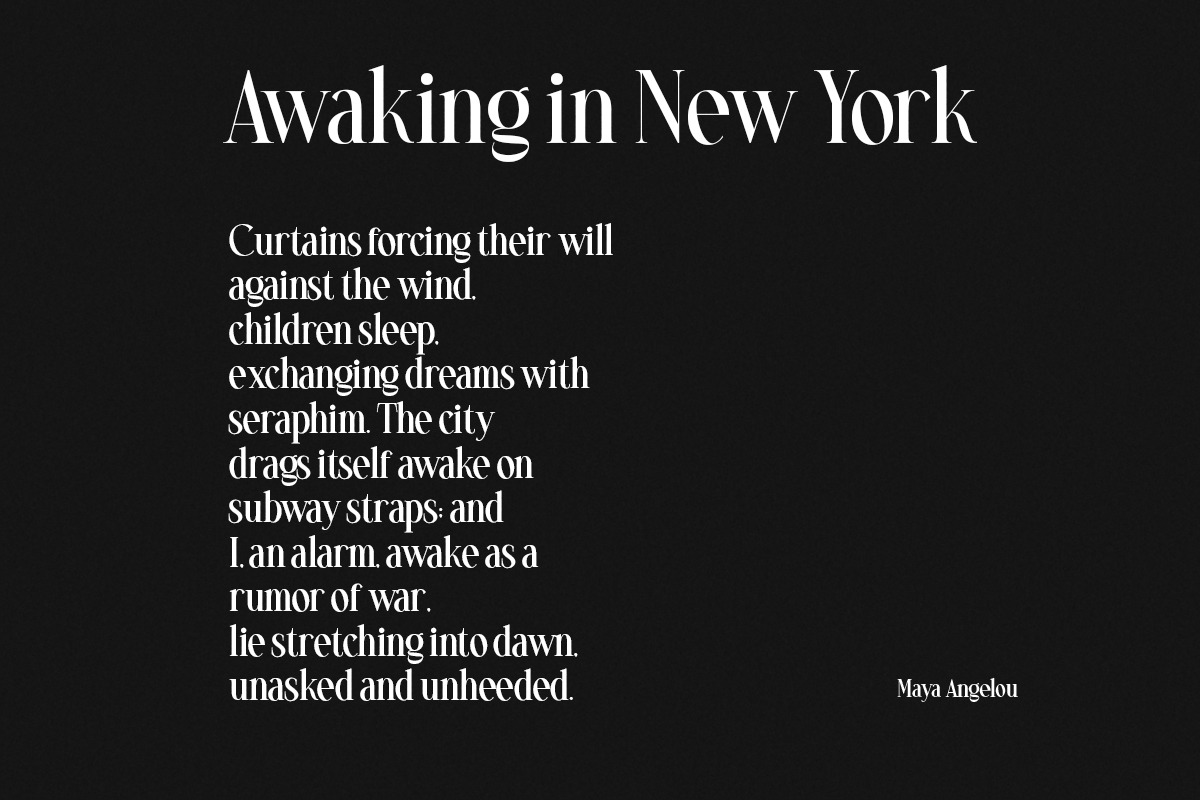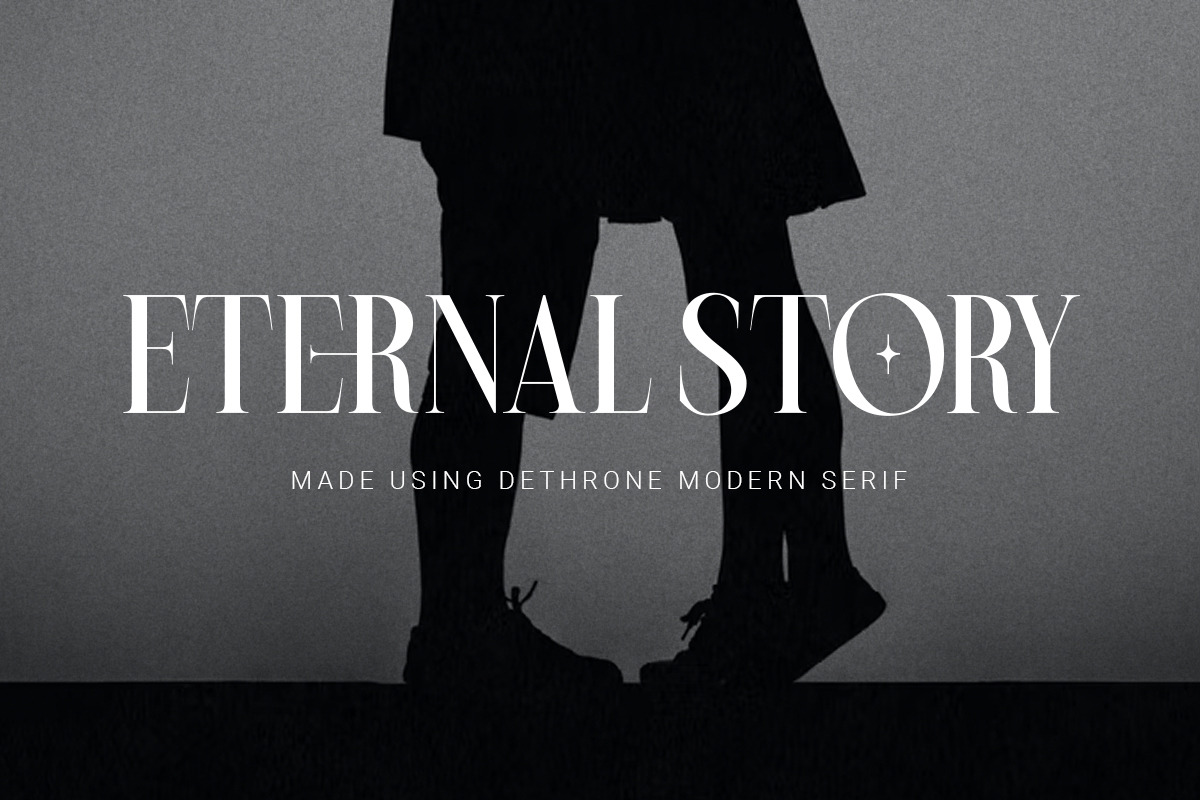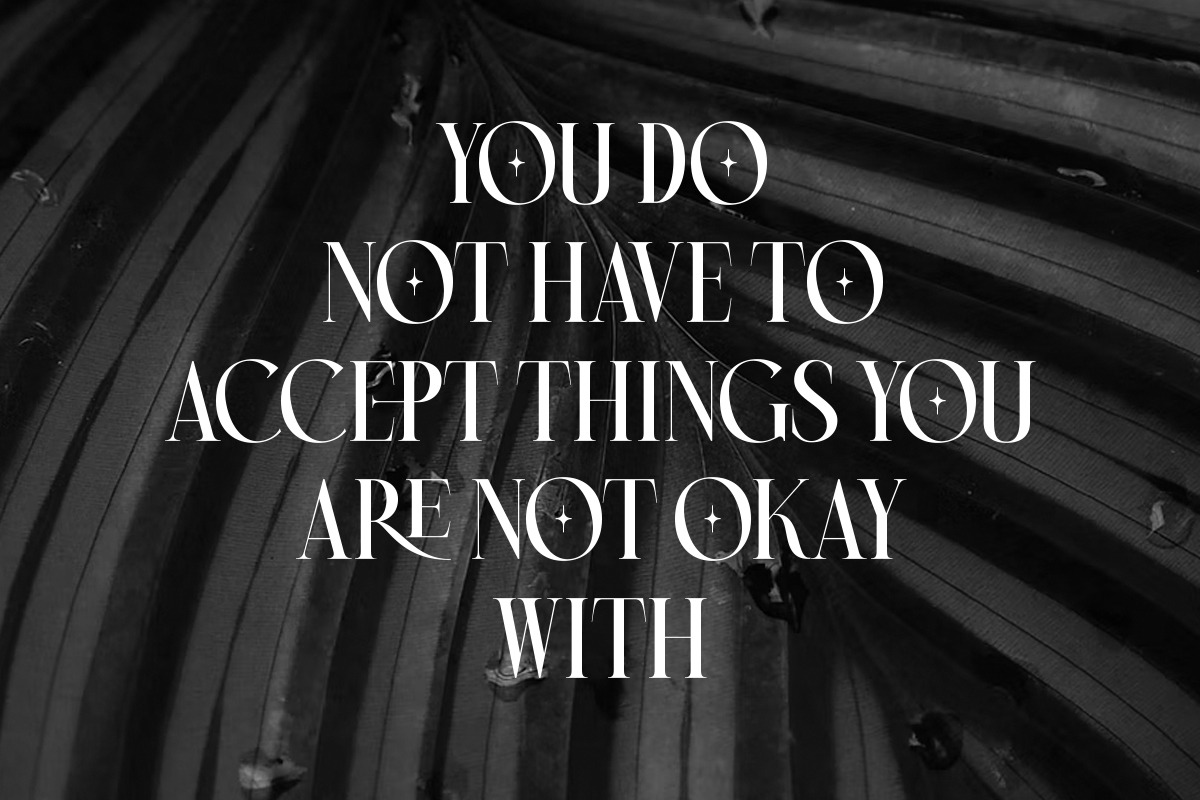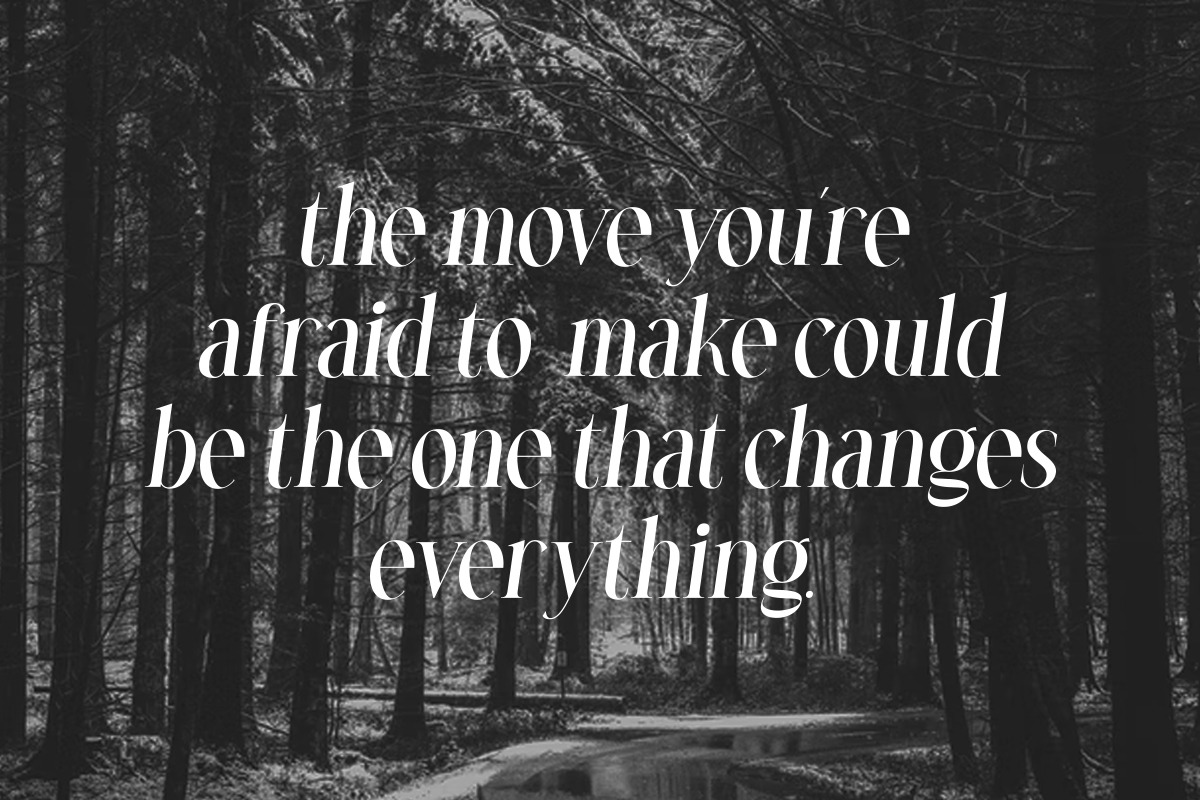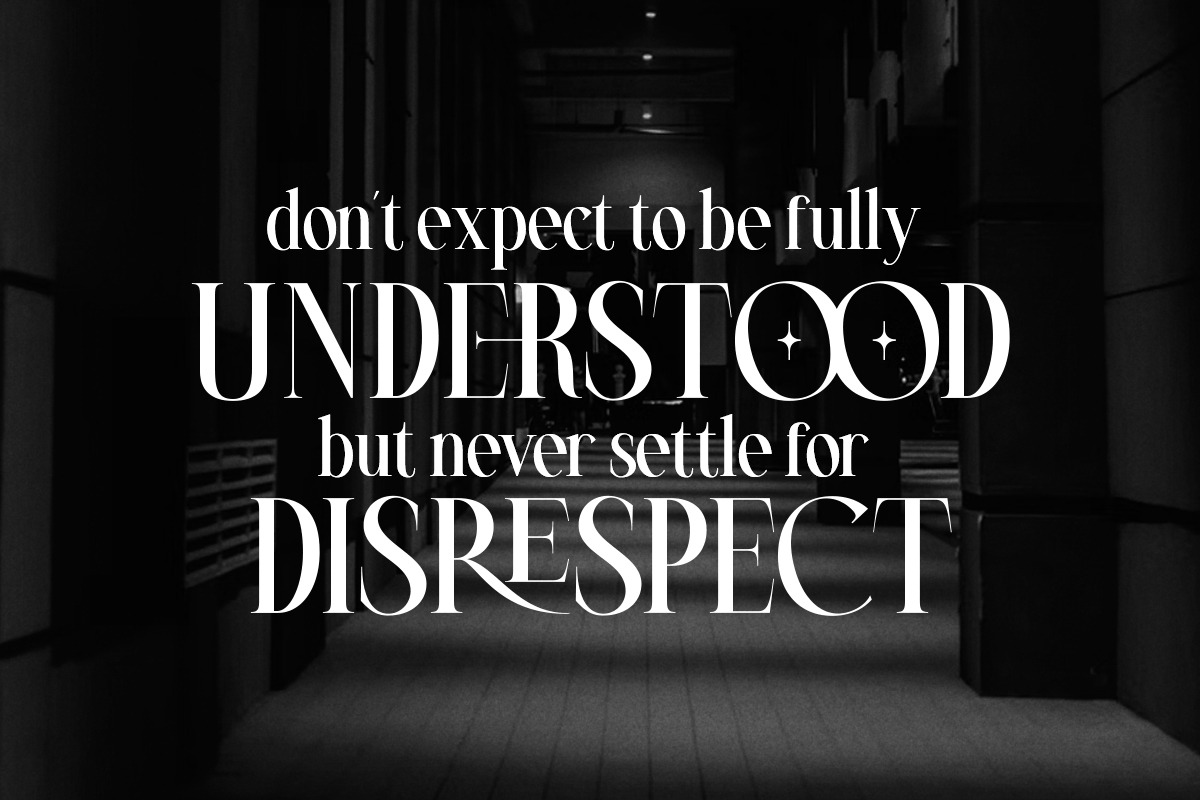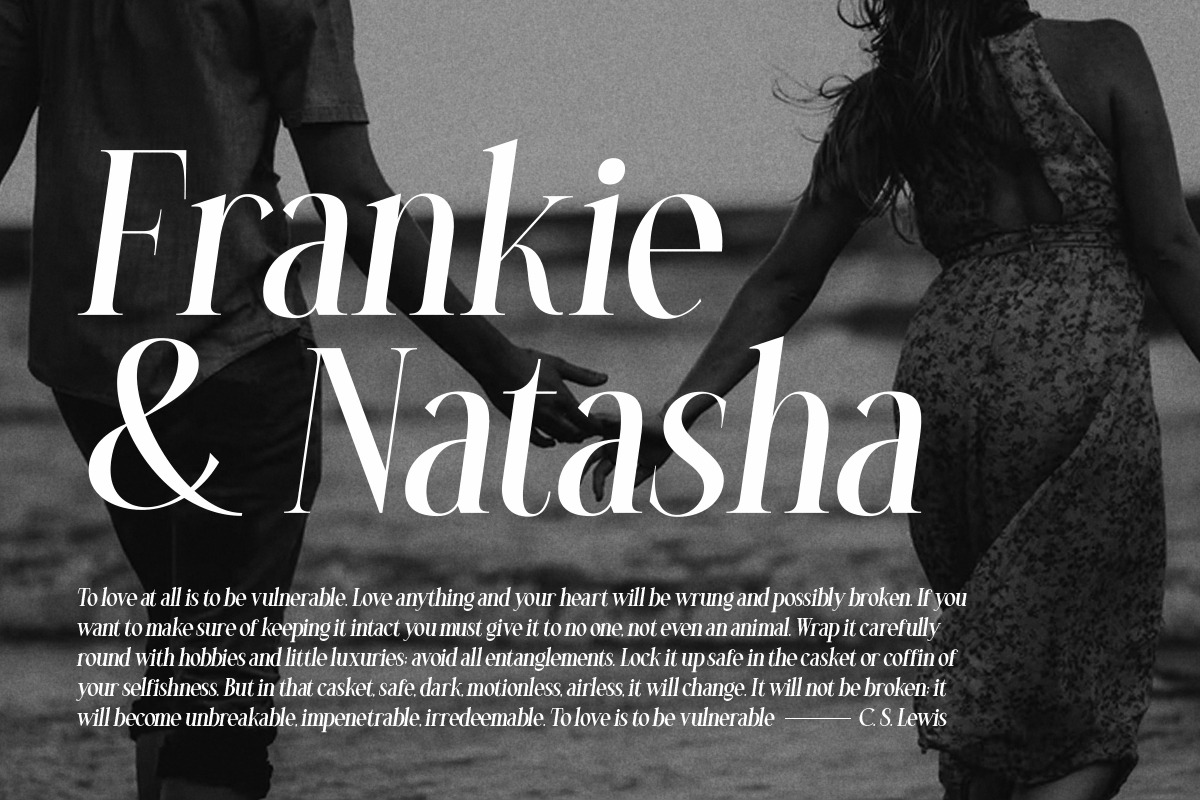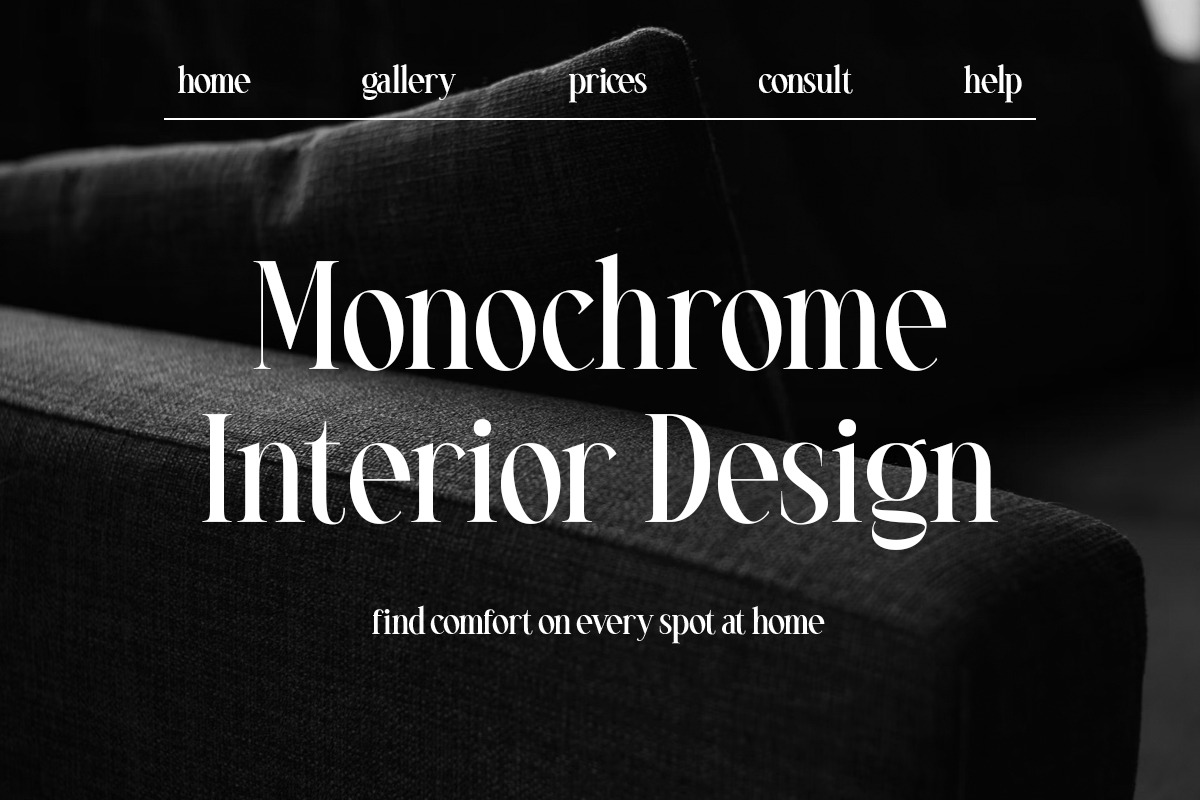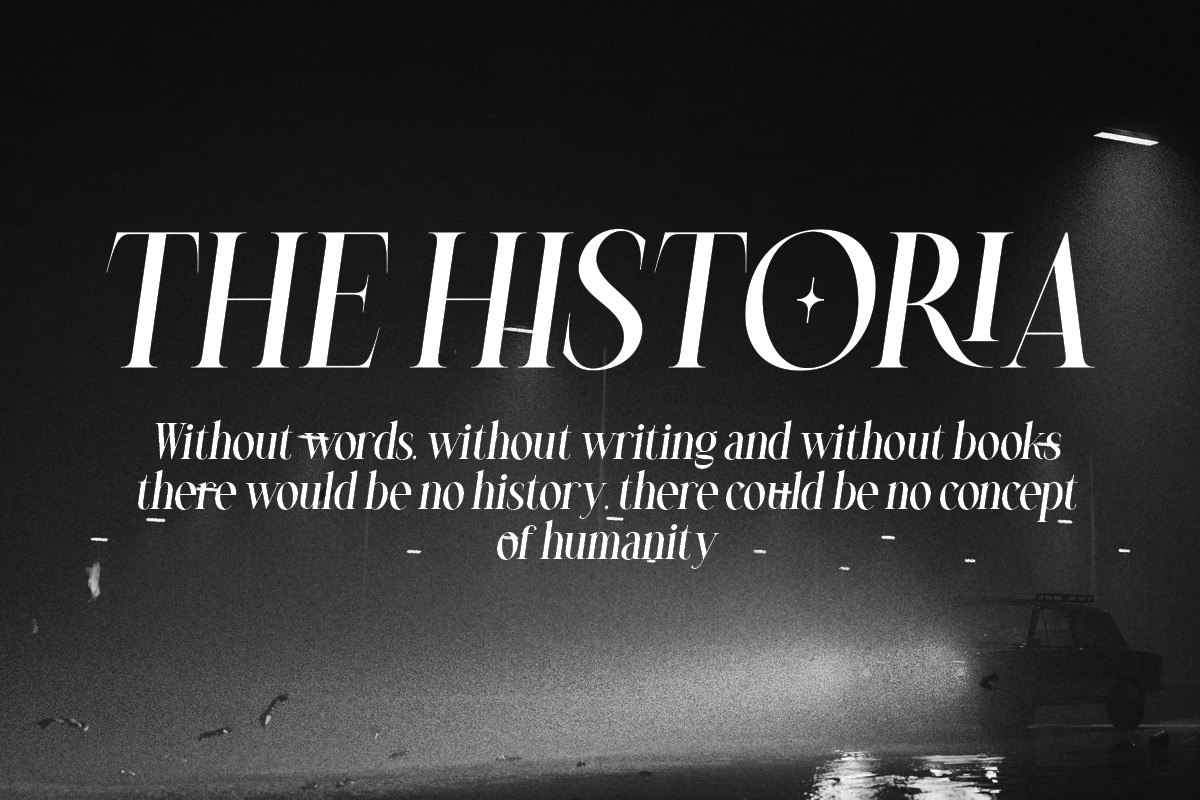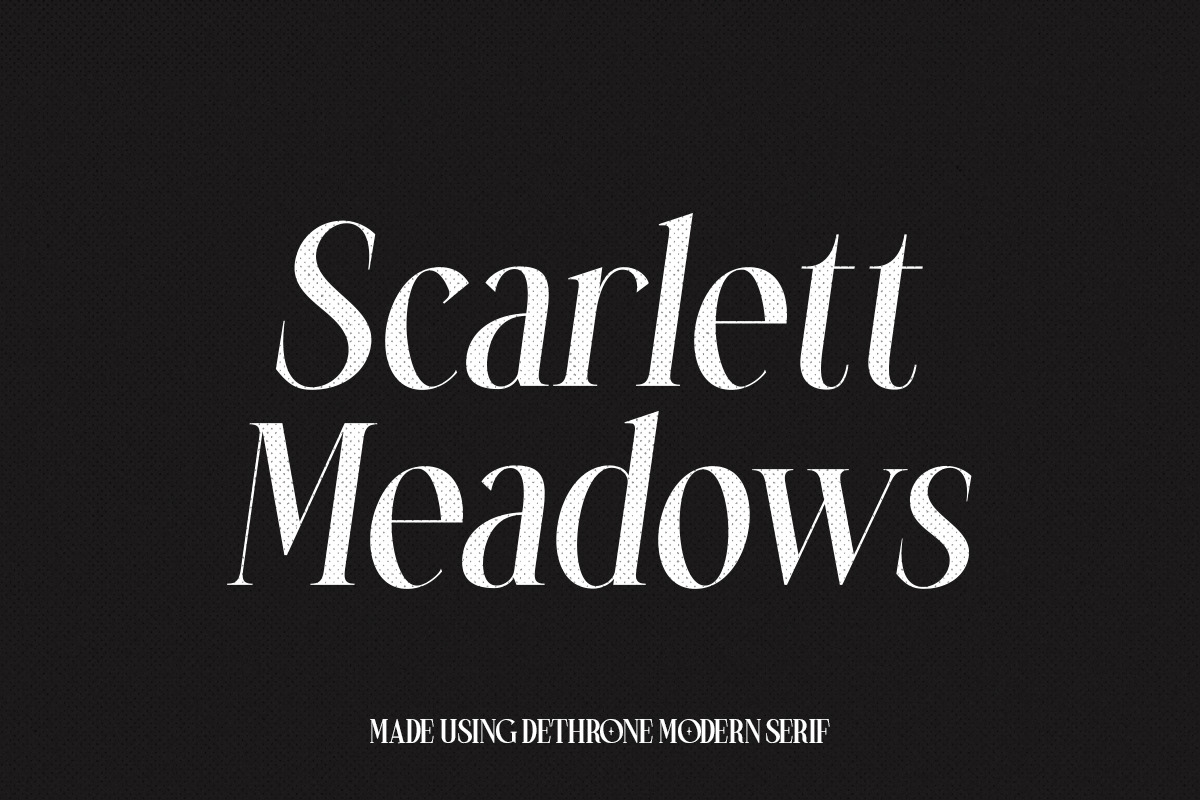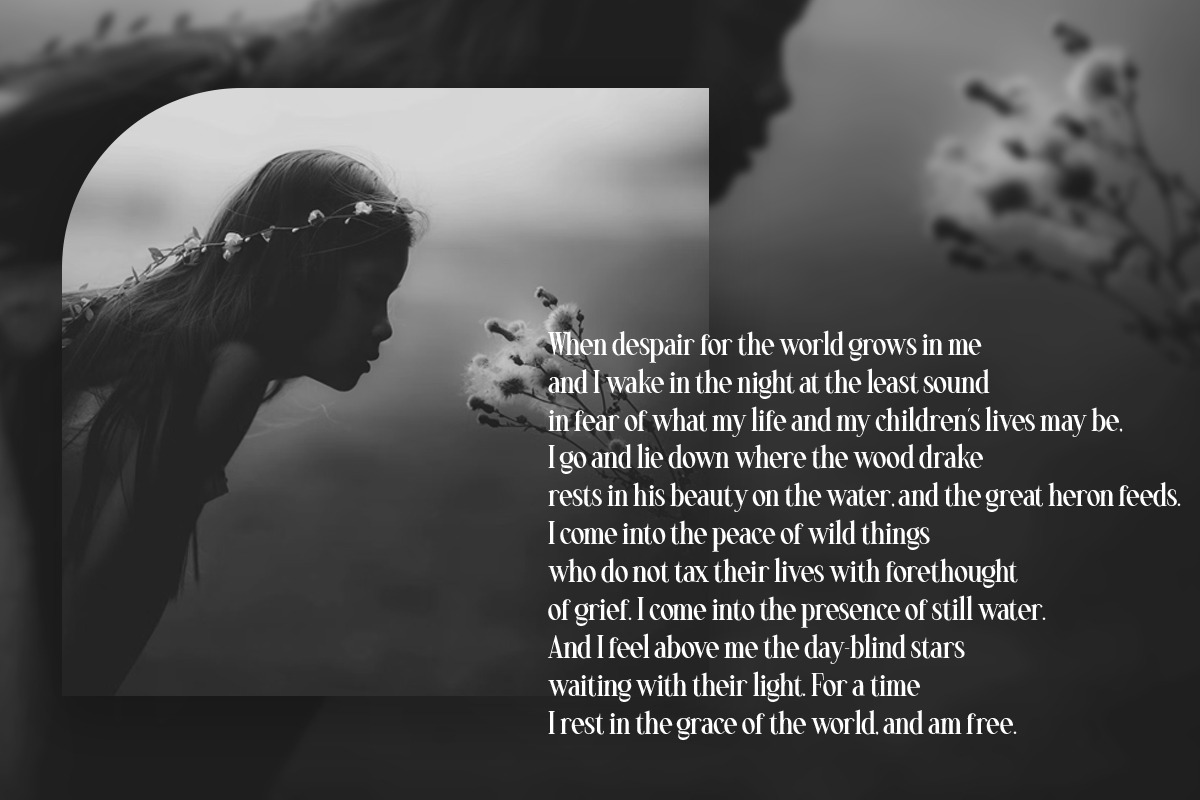
Dethrone - Modern Serif
Introducing, Dethrone! Dethrone is a modern serif font that bring you clean and sharp feels. this font also comes with lowercase, ligatures, and multi lingual support. Dethrone is perfect for your branding project, headline, logotype, packaging, invitation, advertising, etc.